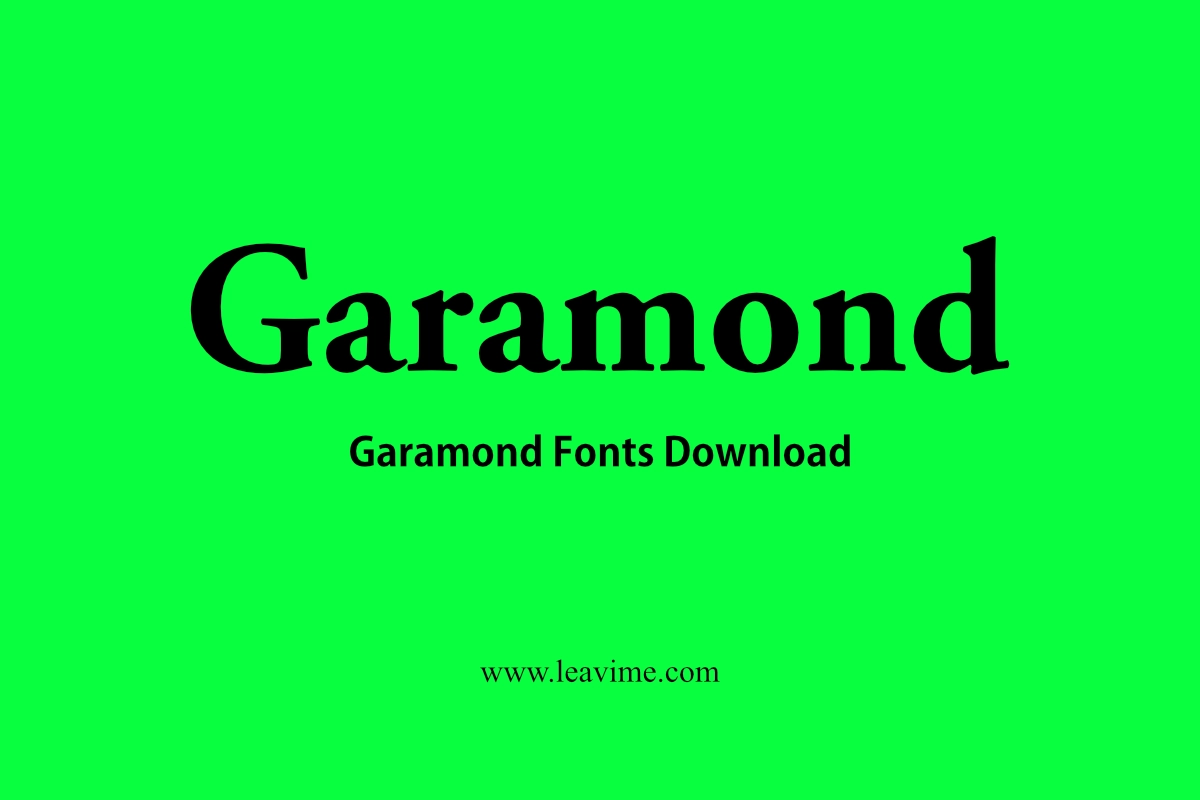
Garamond Fonts Download: The Ultimate Guide to Choosing and Using This Timeless Typeface
Discover everything about Garamond fonts download in this ultimate guide. Learn why this classic typeface is perfect for your design needs and how to use it effectively.
If you’re passionate about typography like I am, you’ve probably encountered Garamond. This classic typeface has graced countless books, websites, and designs with its timeless elegance. But where can you find Garamond fonts to download, and why should you consider using them? In this comprehensive guide, I’ll walk you through everything you need to know about Garamond fonts, including their history, why they’re a favorite among designers, and how to download them easily.
What is Garamond?
Garamond is a family of typefaces inspired by the work of Claude Garamond, a French type designer from the 16th century. Known for its elegance and readability, Garamond is a serif typeface that has stood the test of time. Today, it’s widely used in:
• Book publishing
• Academic papers
• Professional presentations
• Websites aiming for a classic look
Key Features of Garamond Fonts
• Timeless design: Perfect for both modern and classic projects.
• High readability: Ideal for long-form content.
• Versatility: Suitable for print and digital formats.
Why Choose Garamond Fonts?
When I choose a font, I’m looking for a combination of style, readability, and versatility. Garamond checks all those boxes. Here are some reasons why you might love it too:
1. Elegant and Professional Look
Garamond’s classic style exudes professionalism, making it perfect for resumes, business proposals, and formal invitations.
2. Improved Readability
The font’s clean lines and balanced spacing make it a favorite for books and long articles. Readers can enjoy extended content without straining their eyes.
3. Versatility Across Media
Whether you’re designing a printed brochure or a website, Garamond adapts beautifully. Its timeless design ensures your project looks polished and cohesive.
Popular Versions of Garamond Fonts
1. Adobe Garamond
This digital version by Adobe retains the classic features of the original typeface while optimizing it for modern usage.
2. EB Garamond
An open-source version of Garamond, perfect for budget-conscious designers who need a high-quality font.
3. ITC Garamond
A modern interpretation of Garamond with slightly bolder lines, making it ideal for headlines and branding.
4. Stempel Garamond
Known for its close adherence to the original design by Claude Garamond, this version is a favorite for traditional publishing.
Tips for Using Garamond Fonts Effectively
To make the most of Garamond fonts, keep these tips in mind:
1. Pair with Complementary Fonts
Garamond pairs beautifully with sans-serif fonts like Arial or Helvetica. This contrast adds visual interest to your design.
2. Use Appropriate Font Sizes
For body text, a size of 10-12 points works best. For headings, increase the size to 18-24 points to make them stand out.
3. Mind the Line Spacing
Ensure sufficient line spacing (1.5x to 2x the font size) for optimal readability.
2. Can I use Garamond for commercial projects?
Yes, but ensure you have the appropriate license if you’re using a premium version.
3. What makes Garamond different from other serif fonts?
Garamond’s unique design and historical roots give it a timeless elegance that sets it apart from other serif fonts.
4. How do I pair Garamond with other fonts?
Garamond works well with sans-serif fonts for contrast and clarity. Experiment with combinations to find the perfect match for your project.
Conclusion
Garamond is more than just a typeface; it’s a piece of history that continues to inspire designers worldwide. Whether you’re working on a professional document, a creative project, or a digital design, Garamond can elevate your work with its timeless elegance.